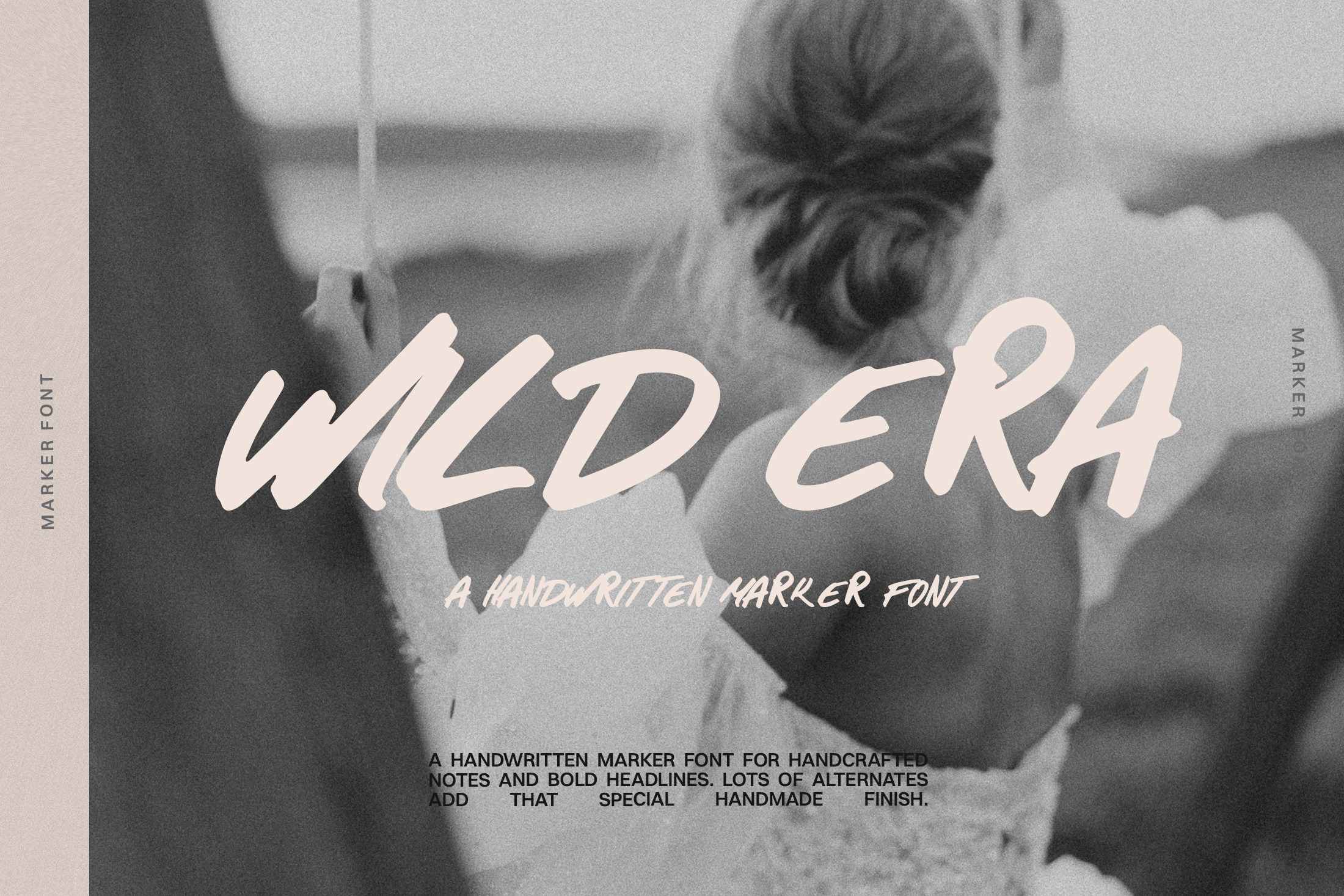
Wild Era Handwritten Marker Font
Introducing Wild Era - the perfect untamed marker font to infuse your creative projects with radiant energy. The perfect handwritten note, this versatile marker font turns every design into a trendy and eye-catching visual in seconds.
Sleek and captivating, Wild Era is designed to stop the scroll - for show-stopping Social Media content and templates, cutting-edge branding, stunning websites and stationery, outstanding quotes and gorgeous packaging design - and so, so many fun projects.
- lots of alternate characters that are easy to access and make this font even more unique!